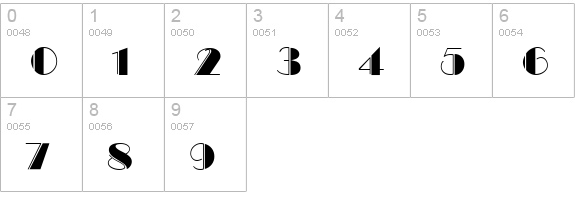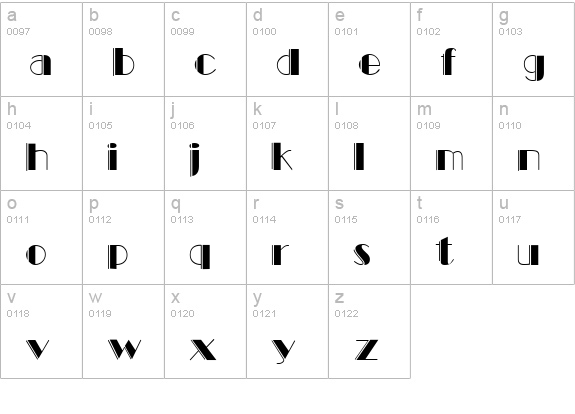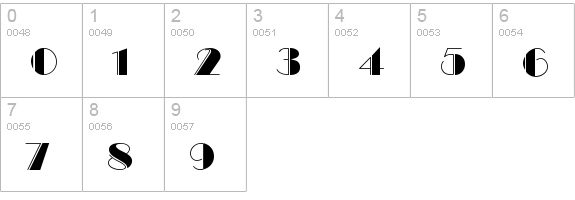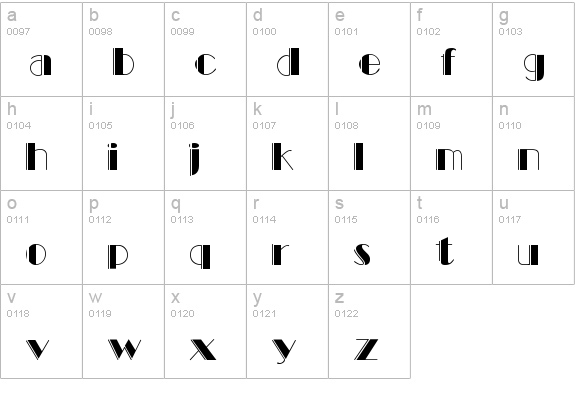
MarqueeEngraved Regular Font Details
MarqueeEngraved Regular is the standard, neutral variant in the MarqueeEngraved typeface family \xE2\x80\x94 well suited to general body text, paragraphs, and standard typographic work.
MarqueeEngraved Regular font is a stunning and elegant typeface that captures the essence of classic marquee signs. Its engraved style adds a touch of sophistication and nostalgia to any design project. The carefully crafted letterforms exhibit a perfect balance between sharp edges and smooth curves, creating a visually pleasing aesthetic. This font is ideal for various creative purposes, including headlines, logos, posters, and invitations. It effortlessly combines a vintage charm with a contemporary twist, making it versatile and suitable for both modern and retro-themed designs. The MarqueeEngraved Regular font is sure to grab attention and leave a lasting impression. What makes this font even more appealing is that it is available for free download at FontsMarket.com. Whether you are a professional designer or an enthusiast looking to enhance your creative endeavors, you can easily access and utilize this font without any cost. FontsMarket.com offers a user-friendly platform where you can effortlessly discover and download a wide range of high-quality fonts, including MarqueeEngraved Regular. With its timeless appeal and the convenience of being freely available, MarqueeEngraved Regular font is a must-have for anyone seeking to add a touch of elegance and nostalgia to their design projects. Download it today and unlock a world of creative possibilities.